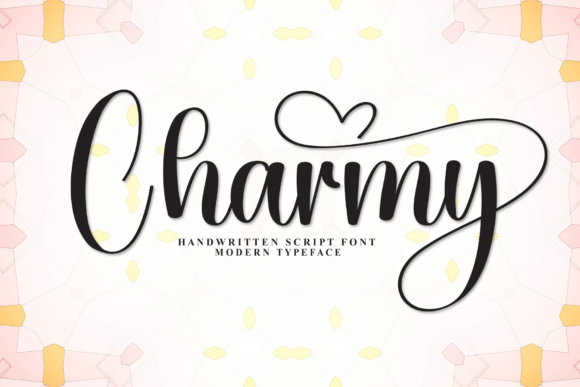
Discover the Allure of Charmy Font
As designers, we’ve all been there – staring at a blank canvas, waiting for the perfect font to bring our vision to life. And then, it happens. A single stroke, a delicate curve, and suddenly our entire design begins to take shape. For me, that moment came when I discovered the elegant Charmy Font, a stylish script font that exudes contemporary charm and sophistication.
Charmy Font is the perfect blend of classic calligraphy and modern design. Its fluid curves and carefully crafted letterforms make it ideal for logos, invitations, packaging, and social media graphics. With its natural flow and polished details, this font delivers both versatility and visual appeal, adding a refined and sophisticated touch to any design.
Whether you’re a seasoned designer or just starting out, Charmy Font is a valuable addition to your toolkit. Its timeless beauty and adaptability make it a go-to choice for designers looking to elevate their work and leave a lasting impression.
Charmy Font Key Features
- Unique Characteristics: Charmy Font features a unique blend of elegance and playfulness, making it ideal for designs that require a touch of whimsy and sophistication.
Charmy Font Review
I’ve had the chance to work with Charmy Font, and I must say it’s a unique addition to any design project. ✨ The font’s playful, cursive nature makes it perfect for creating a whimsical atmosphere in invitations, greeting cards, or even social media graphics. The varying line thickness and subtle flair add a touch of sophistication that balances out the overall feel.
The Charmy Font is also highly customizable, making it easy to adjust to fit any design style. ✨ You can play around with the weight, size, and spacing to create a look that’s all your own. Plus, the font is available in a range of languages, which is a definite plus for designers working with international clients.
- ⚠️ While the Charmy Font is great for informal projects, it may not be the best choice for more formal or professional designs. The font’s playful nature may come across as unprofessional in certain contexts.
Overall, I think the Charmy Font is a solid choice for designers looking to add some personality to their projects. While it may have some limitations, its unique style and high level of customization make it a great addition to any design arsenal.
The Charmy Font is ideal for:
- Creative and artistic designs
- Special occasion and event designs
Getting the Most Out of Charmy Font
For the best results, use the Charmy Font in conjunction with bold colors and creative layouts. Experiment with different font sizes and styles to create a visually appealing design.
Alternatives to Charmy Font
Lobster is a fun, casual script font that’s perfect for adding a touch of personality to your designs. It’s great for use in titles, headings, and other emphasis areas where you want to draw attention.
Compared to Charmy Font, Lobster has a more playful and whimsical feel. While Charmy Font is more elegant and sophisticated, Lobster is better suited for designs that need a bit of humor or lightheartedness.
Great Vibes is a beautiful, cursive script font that’s perfect for adding a touch of elegance and sophistication to your designs. It’s great for use in titles, headings, and other emphasis areas where you want to create a sense of refinement.